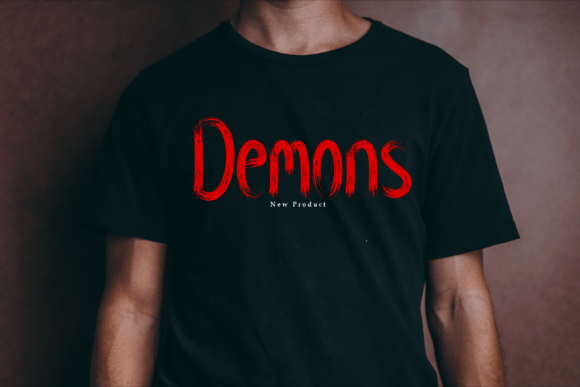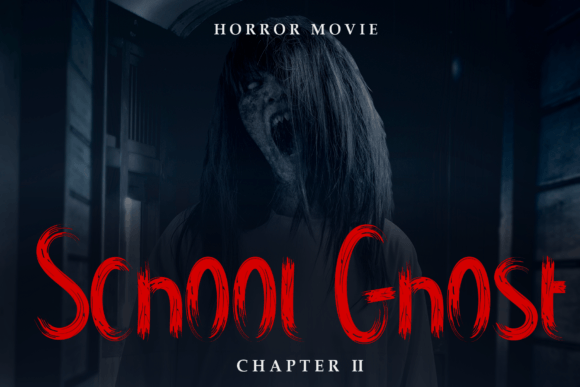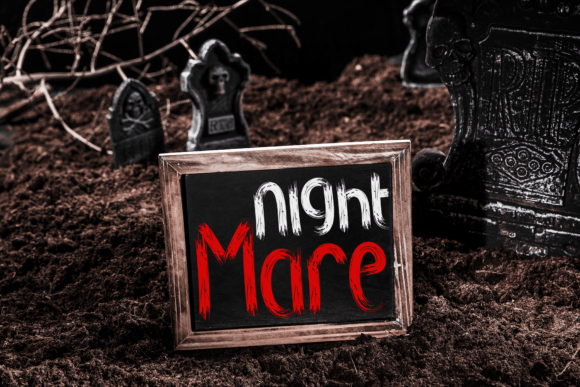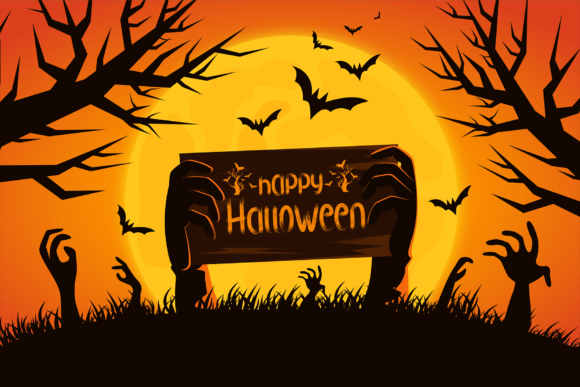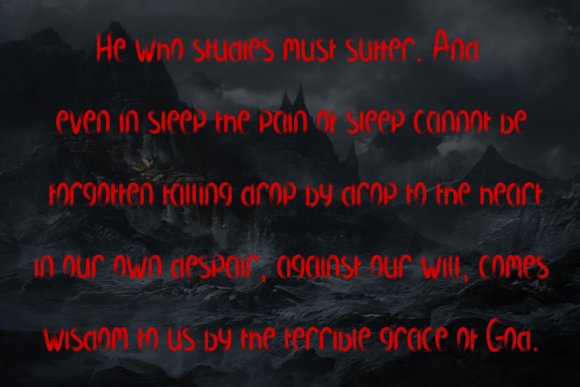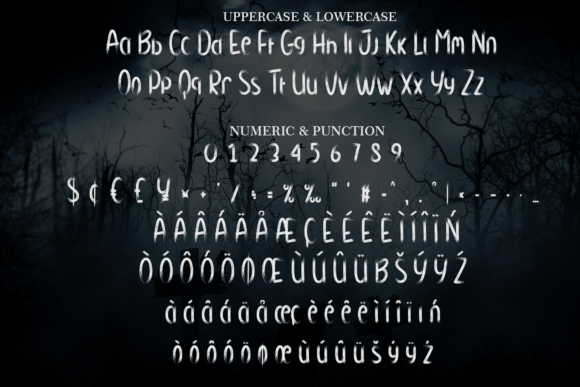
Unleash the Terror with Hauntedtree Font: A Spine-Chilling Display Typeface
Are you looking for a font that sends shivers down the reader’s spine? Do you want to add a touch of eeriness to your designs, perfect for Halloween-themed projects, horror movie titles, or gothic-inspired artwork? Look no further than Hauntedtree Font, a twisted and gnarled display typeface that captures the haunting essence of haunted forests.
The Haunting Allure of Hauntedtree Font
Hauntedtree Font is a unique and unsettling typeface that invokes a sense of darkness and mystery. Its twisted and gnarled letterforms seem to writhe and twist on the page, evoking the eerie atmosphere of a haunted forest. This font is perfect for designers and crafters who want to add a touch of the macabre to their work, creating a sense of foreboding and unease in their audience.
Perfect for Halloween-Themed Designs
Halloween is just around the corner, and Hauntedtree Font is the perfect addition to your spooky designs. Whether you’re creating invitations, posters, or social media graphics, this font will add a touch of terror to your work. Imagine the impact of a Hauntedtree Font title on a Halloween party invitation, or the eerie effect it would have on a horror movie poster. Your audience will be spellbound by the haunting allure of this font.
Gothic-Inspired Artwork and Horror Movie Titles
Hauntedtree Font is not just limited to Halloween-themed designs. Its gothic-inspired aesthetic makes it perfect for a wide range of projects, from horror movie titles to gothic-inspired artwork. Imagine using Hauntedtree Font to title a horror movie, or to create a haunting logo for a gothic-inspired brand. The possibilities are endless, and the impact will be unforgettable.
Key Features of Hauntedtree Font
- Twisted and gnarled letterforms: Hauntedtree Font features twisted and gnarled letterforms that seem to writhe and twist on the page, evoking the eerie atmosphere of a haunted forest.
- Spine-chilling display typeface: This font is designed to send shivers down the reader’s spine, making it perfect for horror movie titles, Halloween-themed designs, and gothic-inspired artwork.
- Perfect for designers and crafters: Hauntedtree Font is a versatile typeface that can be used for a wide range of projects, from digital designs to craft projects.
- Eerie and unsettling: This font invokes a sense of darkness and mystery, making it perfect for projects that require a touch of the macabre.
Tips for Using Hauntedtree Font
Here are a few tips for using Hauntedtree Font in your designs:
- Use it sparingly: Hauntedtree Font is a bold and attention-grabbing typeface, so use it sparingly to avoid overwhelming your audience.
- Pair it with contrasting fonts: Pair Hauntedtree Font with contrasting fonts to create visual interest and add depth to your designs.
- Experiment with colors: Hauntedtree Font looks great in bold, dark colors, but feel free to experiment with different colors to create a unique look.
Hauntedtree Font is a spine-chilling display typeface that captures the eerie essence of haunted forests. With its twisted and gnarled letterforms, this font invokes a sense of darkness and mystery, making it perfect for Halloween-themed designs, horror movie titles, and gothic-inspired artwork. Let your designs be consumed by the haunting allure of Hauntedtree Font, and unleash the terror in your audience.